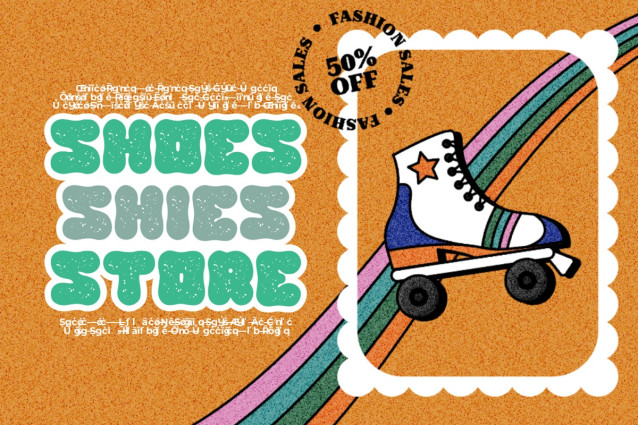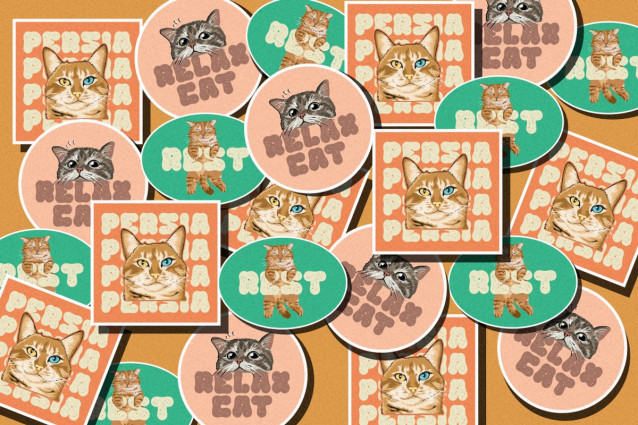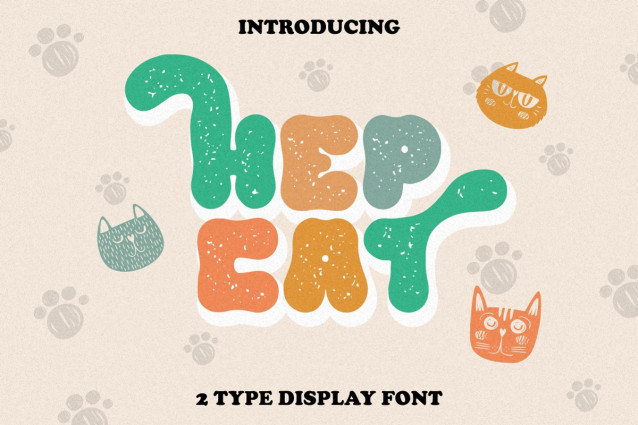
The Hepcat Font
The Hepcat Font – 2 Style Display Font, a font that effortlessly embodies boldness, retro vibes, vintage charm, and a touch of playfulness. Its rounded letterforms and unique alternative characters add an extra layer of distinction to your designs. With two versatile styles, this font is perfect for lending a lively and captivating aura to your projects.
Whether you’re creating a logo, branding materials, posters, stickers, labels, or magazine layouts, The Hepcat is your go-to choice for injecting a sense of fun and character into your work. Its versatile nature ensures it adapts seamlessly to a variety of design contexts, enhancing your creative possibilities. Embrace the bold, retro, and groovy energy of The Hepcat – 2 Style Display Font and watch your designs come to life with a dash of playful nostalgia.